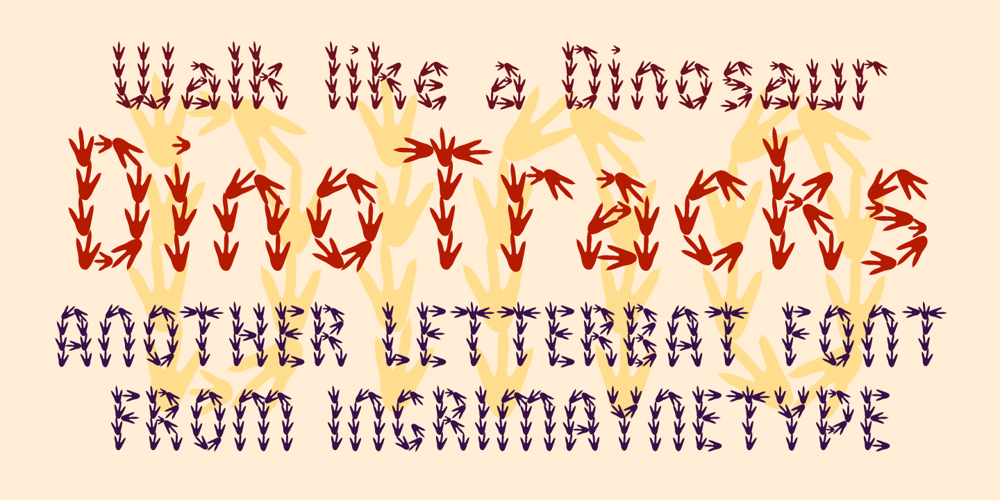
DinoTracks
DinoTracks font
DinoTracks Font Family was designed by Robert Schenk and published by Ingrimayne Type. DinoTracks contains 1 styles and family package options. DinoTracks is a novelty or letterbox font in which the letters are formed with dinosaur footprints. It is readable at small point sizes, but then one cannot see that the letters are made from footprints